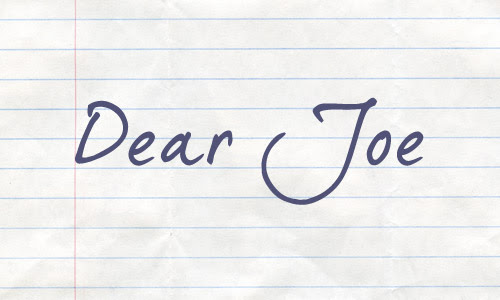
25 Free Handwriting Fonts for your Designer Toolbox
People always ask what font I use to create my annotated code examples in my web design tutorials here on Line25, so I figured a roundup of the best hand-drawn fonts would prove quite handy. This post rounds up a range of free handwriting fonts based on various handwriting styles. If you’re in need of a font to add a human touch to your design in the form of a note or a personal message, you can be sure you’ll find the perfect font in this collection.
Since we were granted the ability to make font choices beyond Helvetica and Georgia thanks to the @font-face rule and the various web fonts services we’ve seen an explosion of custom web fonts in website designs. Nowadays we’re spoiled for choice when it comes to web typography and the handwritten fonts have started to gain more and more popularity.
The world of web typography is advancing with leaps and bounds. Already we have the options of SiFR, Cufon, Typekit, @font-face and even Google has introduced their own custom font service under the Google Font API. We hope that these free handwritten fonts will inspire you to add a more personal touch to your website designs. If you’re looking for inspiration on how to use handwritten fonts and elements in a web design, check out these websites with hand drawn typography.
Jenna Sue
This is an amazing font which will make your project look elegant thanks to the way the letters are designed. This is a really nice hand-writing font which can’t miss from your collection.
Hand of Sean
Hand of Sean is a bold hand-writing font which can definitely be used in many creative ways. It can be a great asset to your fonts collection. Download it and see how fast your design project improves.
Daniel
Daniel is a thin hand-writing font which can definitely make your projects look nice. Have a closer look at this example, install it and see in how many creative ways you can use it!
GoodDog
This is yet another good-looking hand-written bold font which can be a great asset to your fonts arsenal. There’s no telling in how many ways using this font can improve your projects.
Sweetly Broken
This is a sweet font which can definitely give an elegant touch to your design projects. Sweetly Broken might be just the font you have been looking for all this time!
Lovely Eunike Hans
This is yet another cool bold and handwritten font which can’t miss from your fonts arsenal.
Max’s Handwritin
Max’s Handwritin is a cool handwritten font which might be exactly what you were looking for. The lettering looks nice and there really no telling in how many creative ways this font can be used!
Angelina
This is yet another amazing font which will make your project look elegant thanks to the way the letters are designed. This is a really nice hand-writing font which can’t miss from your collection.
Journal
This handwriting font can definitely make your projects look nice. Have a closer look at this example, install it and see in how many creative ways you can use it!
Jinky
Linky is a really nice font which can be used in many creative ways and it could be a great asset to your fonts collection. Download it and see how fast your design project improves.
Throw My Hands Up in the Air
This is a cool font with a cool name which can’t miss from your fonts collection. This font is great if you were trying to add a handwritten font to your design project.
Christopher Hand
This font might be exactly what your design project was missing! Have a look at the Christopher Hand font and see if this is what you had in mind!
Joy Like Sunshine Through My Windowpane
This font has a long name which best describes the way the lettering is designed, joyful as the sunshine through one’s windowpane.
The Great Escape
The Great Escape is a really nice hand-writing font which can’t miss from your collection.
Akbar
This font can be a great asset to your fonts collection. Download it and see how fast your design project improves.
Talking to the Moon
This font has quite an elegant lettering which can come in really handy and make your projects look really good.
Dear Joe
Dear Joe is an elegant hand-writing font which can definitely make your projects look nice. Have a closer look at this example, install it and see in how many creative ways you can use it!
Gunny Rewritten
Faraco Hand (As seen on Line25!)
Last but not least, Faraco Hand is yet another really nice hand-writing font which can’t miss from your collection.
Declara
This is a really nice font which can’t miss from your collection. The lettering is very elegant and can definitely improve your design projects.